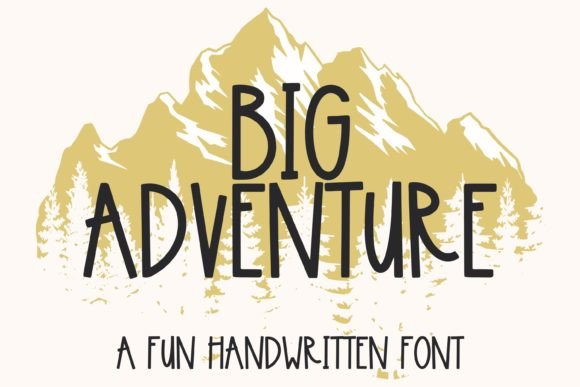
Introducing Big Adventure, the ultimate font for all your stencil Cricut needs! This adorable handwritten font is a must-have addition to your creative projects. Created by designingdigitals, this font is designed specifically for Cricut users, ensuring seamless integration with your cutting machine.
With its playful and fun handwriting style, Big Adventure brings a touch of whimsy and personality to any project. Whether you're crafting cards, scrapbooking, or designing SVG files, this font will breathe life into your creations. It's time to unleash your creativity and let your imagination run wild!
Why settle for ordinary when you can stand out with our amazing Cricut font collection? Big Adventure is your ticket to unlocking endless possibilities for your artistic endeavors. Say goodbye to boring and hello to captivating! With its captivating curves and elegant strokes, this font will make your designs truly remarkable.
But it's not just about aesthetics. Big Adventure is also highly functional. Its compatibility with SVGs ensures effortless integration with your cutting machine, making your workflow smooth and efficient. No more wasting time trying to find the perfect font – Big Adventure has got you covered.
Capture hearts and make a lasting impression with Big Adventure. Its charm and cuteness are irresistible, leaving a lasting impact on anyone who lays eyes on your creations. Stand out from the crowd and leave your mark with this eye-catching font.
Don't miss out on this opportunity to elevate your designs! Get your hands on Big Adventure now and experience the magic it brings to your projects. Let your inner artist shine and watch as your creations come to life in ways you never thought possible.